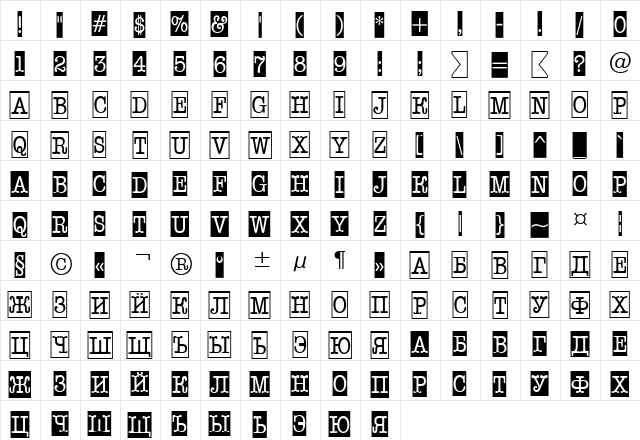
a_OldTyperNrCmCmb1 Regular Font Preview
a_OldTyperNrCmCmb1 Regular
Design Context for a_OldTyperNrCmCmb1 Typeface
a_OldTyperNrCmCmb1 is a composed and adaptable typeface that performs quietly and consistently across a wide range of design contexts.